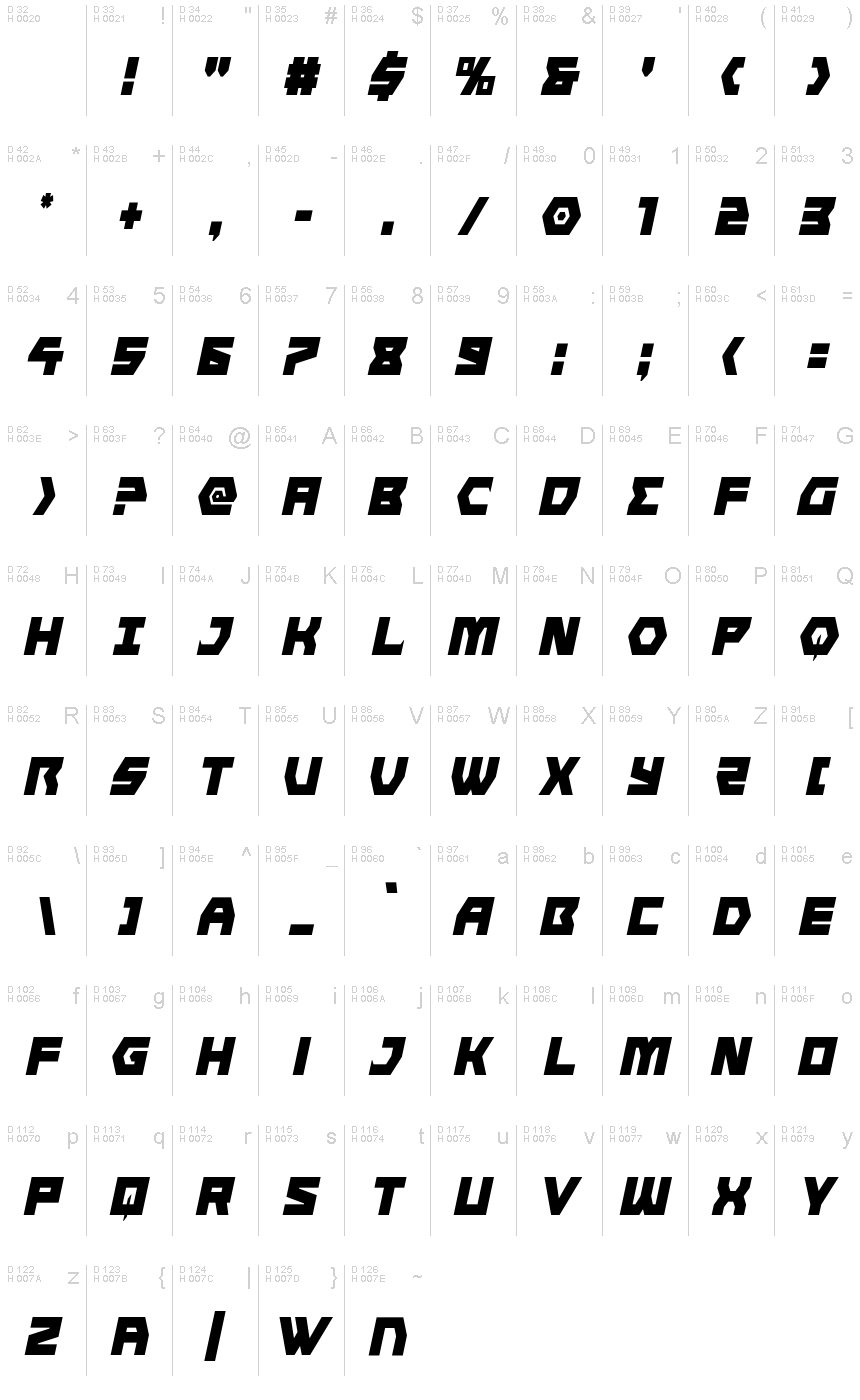
Cyberform Condensed Italic
Designed by Iconian Fonts, Cyberform Condensed Italic is a striking display font that encapsulates the essence of futurism. With its bold weight and expanded width, this typeface exudes strength and innovation. Its sleek, italicized form radiates a sense of motion and modernity, making it perfect for tech-driven projects.
Ideal for headlines, logos, and branding materials, Cyberform Condensed Italic commands attention with its distinctive style. Whether used in digital interfaces or sci-fi themed designs, this font brings an edge of sophistication and forward-thinking appeal to any project.